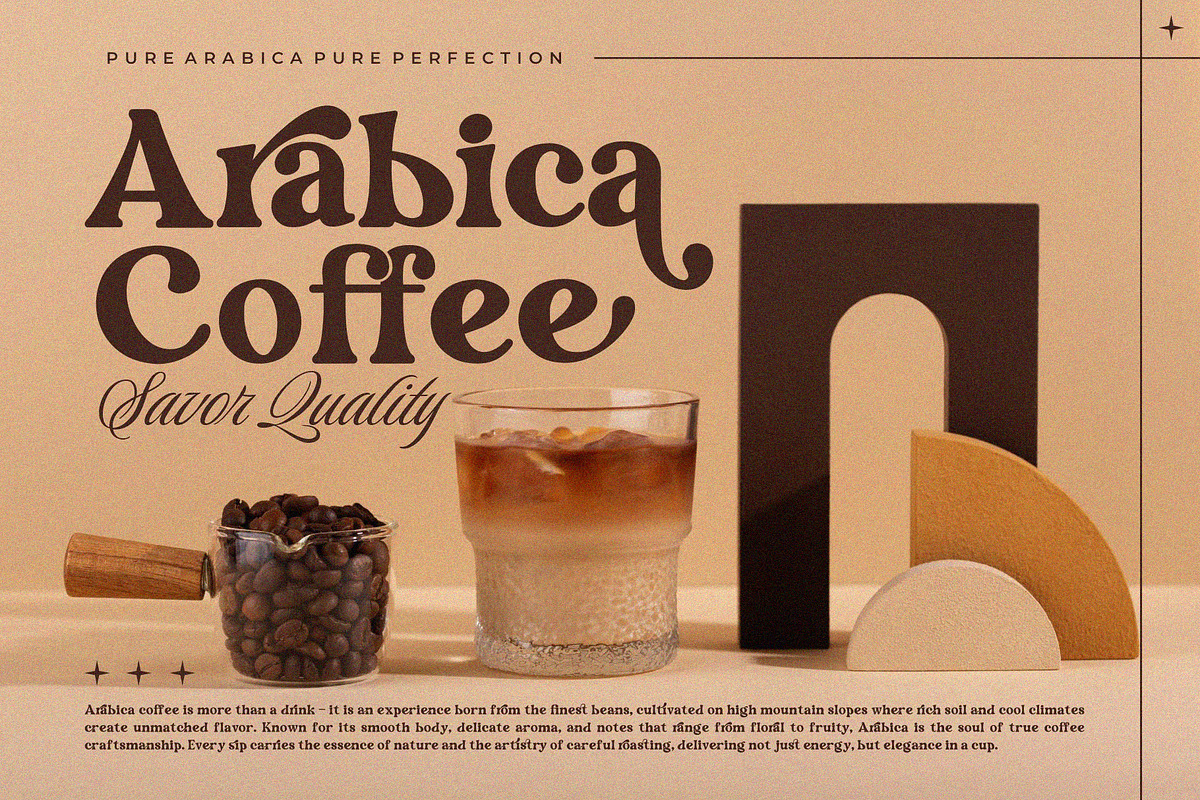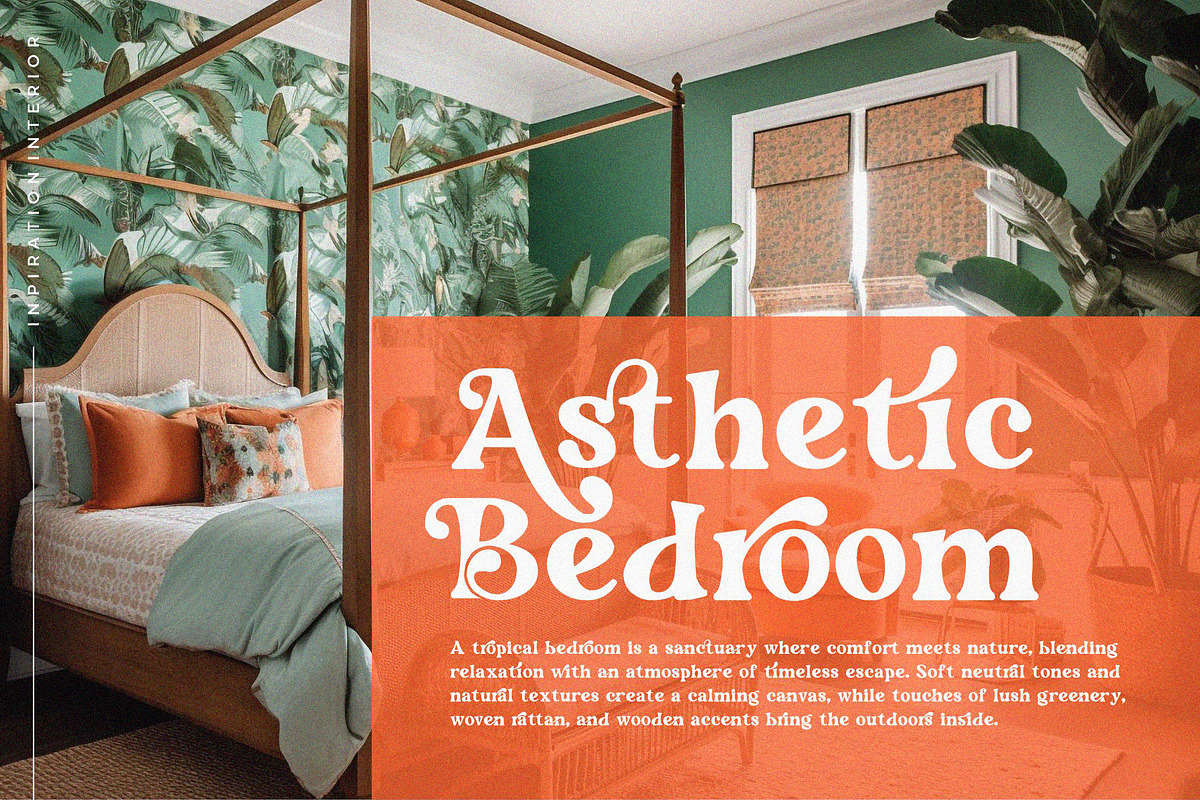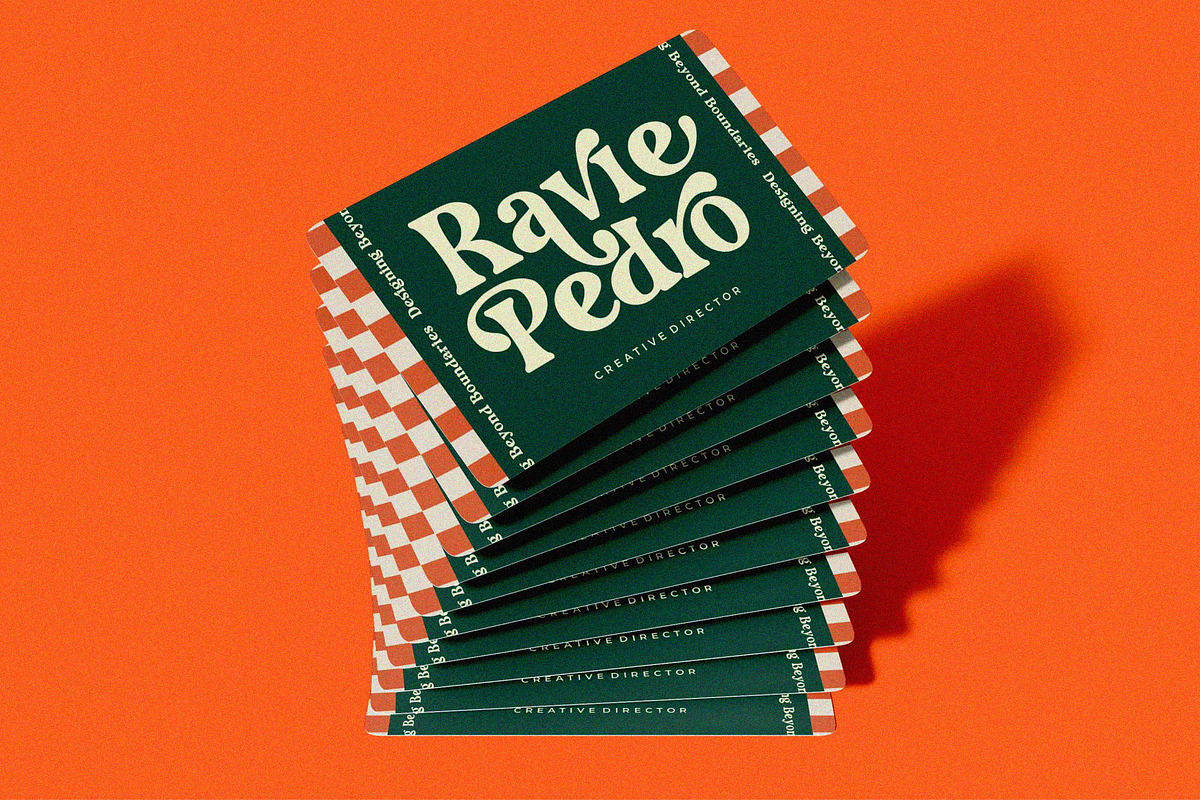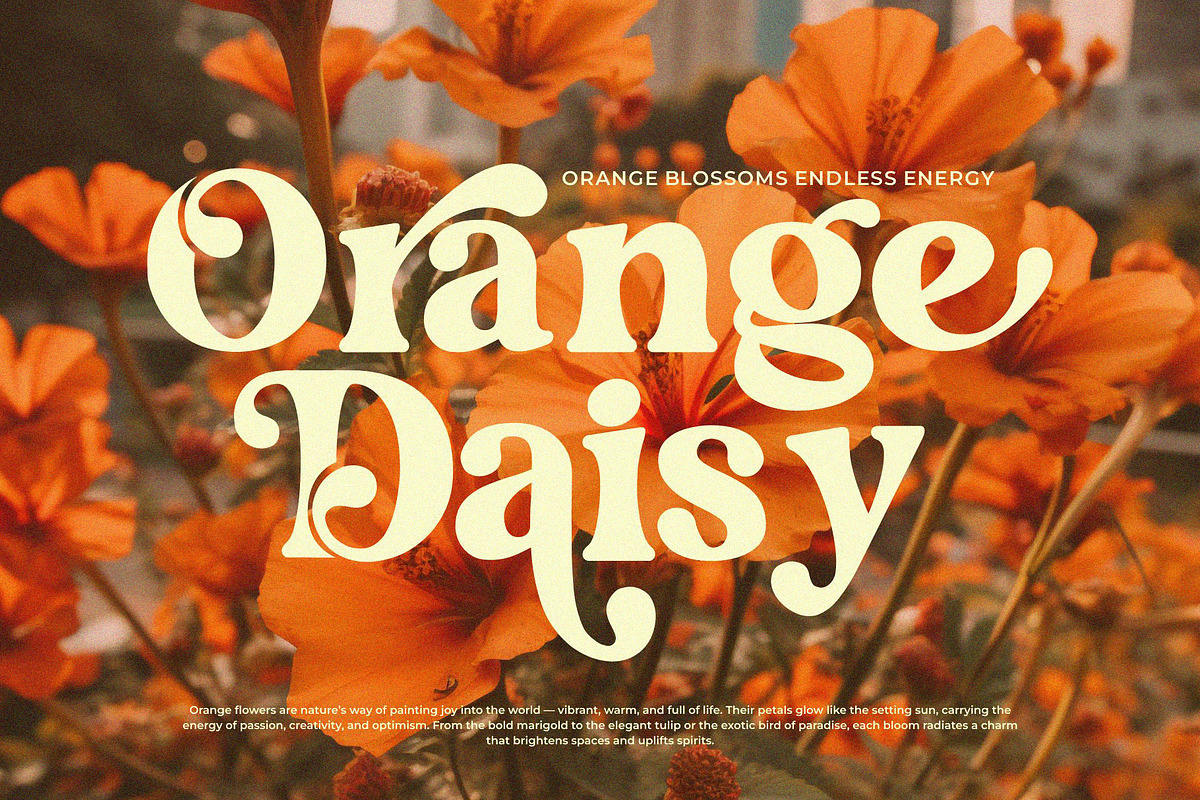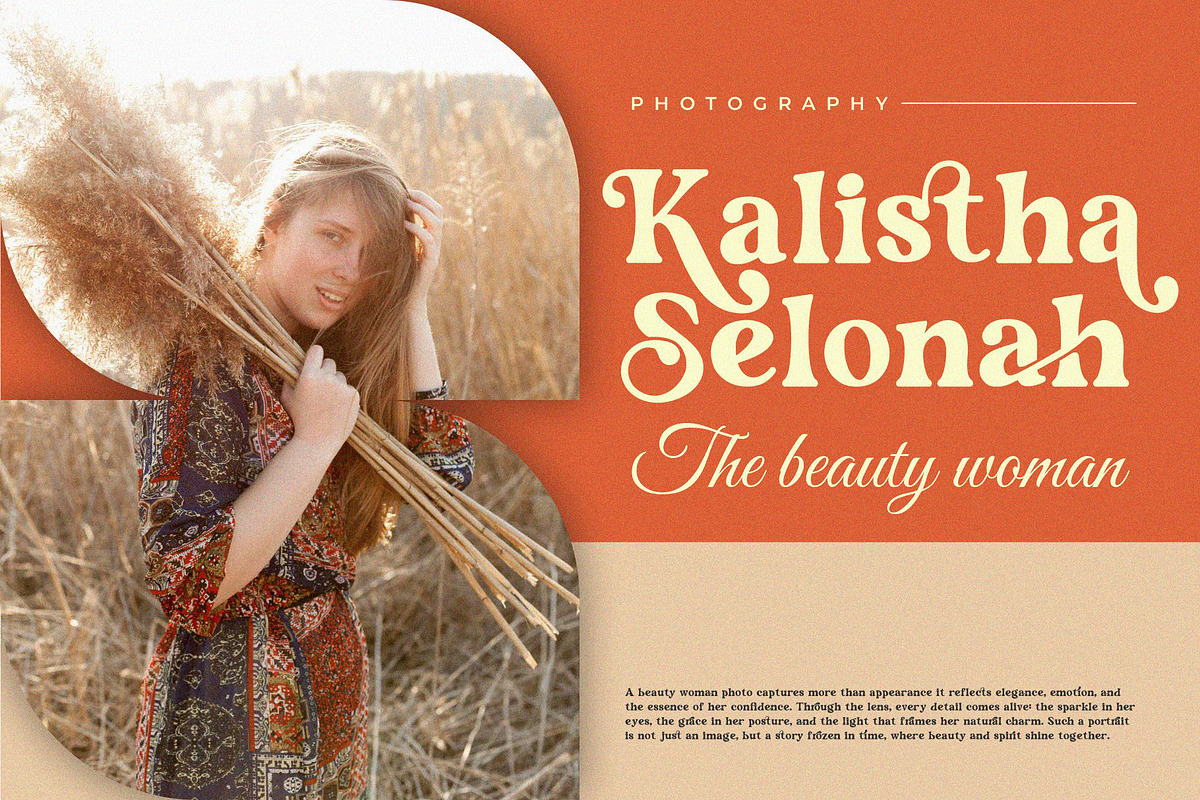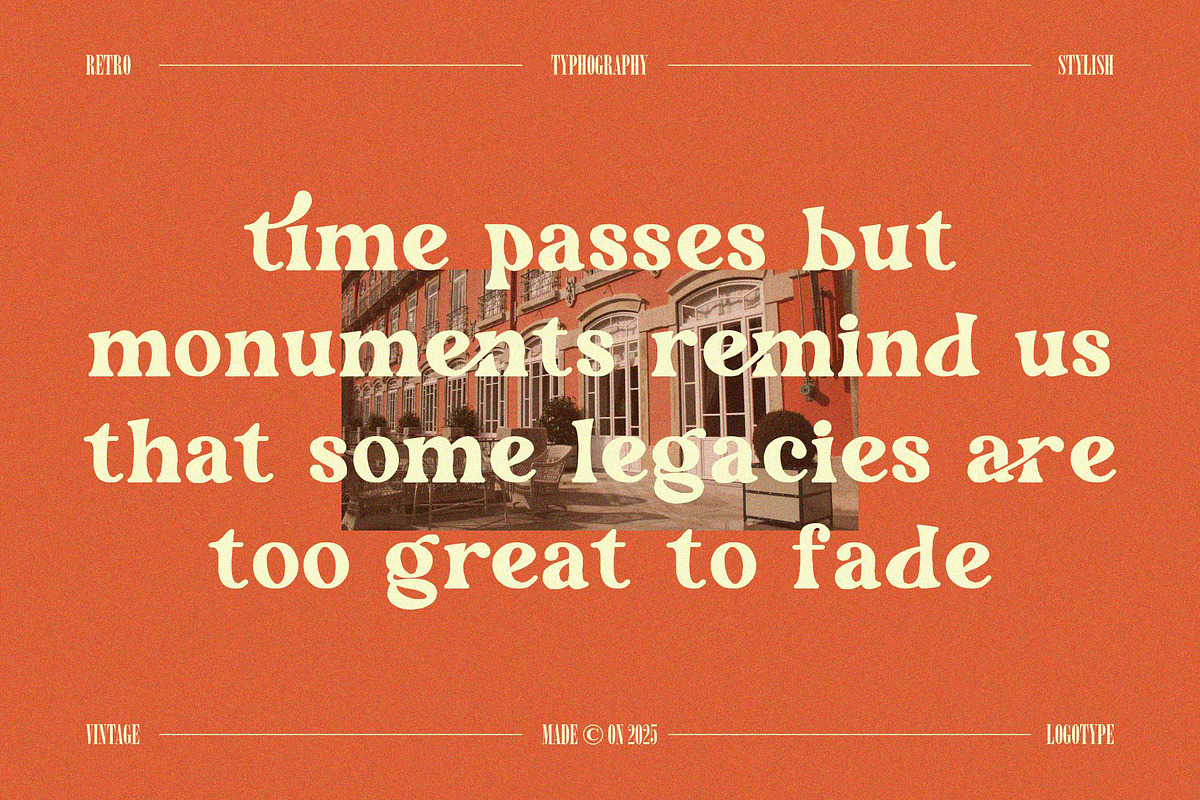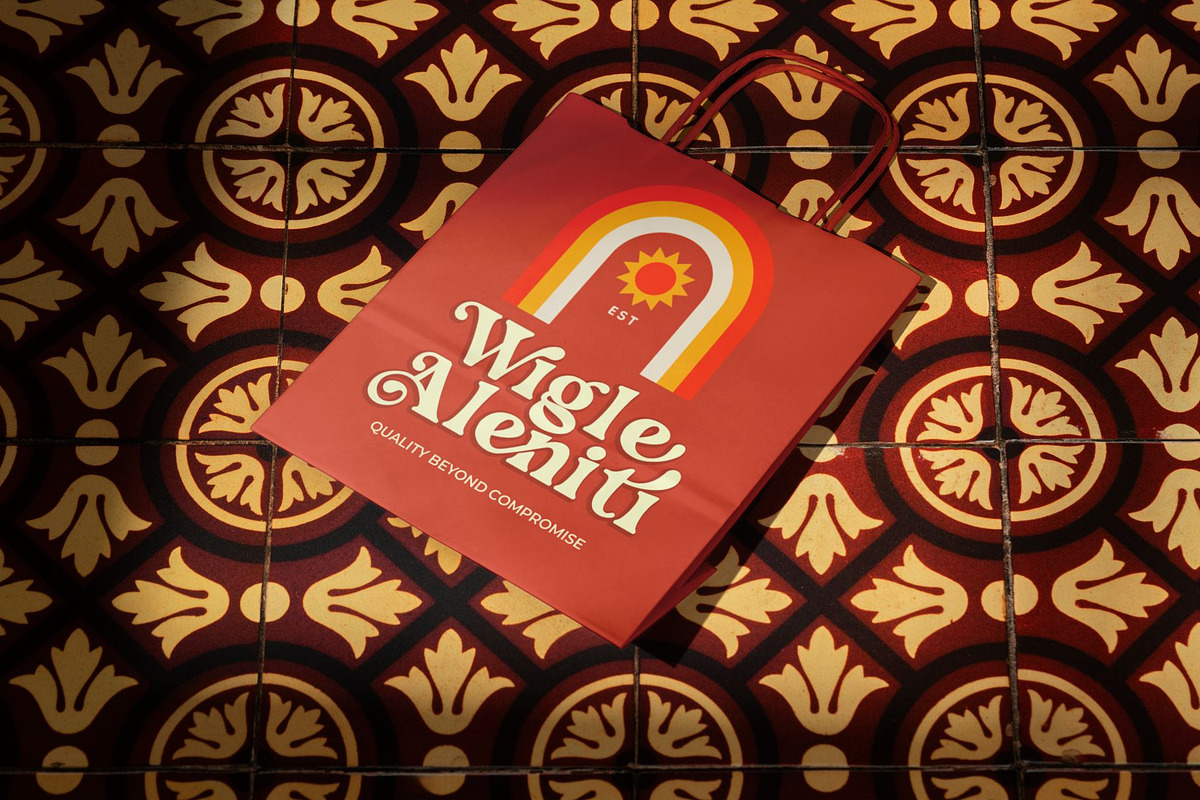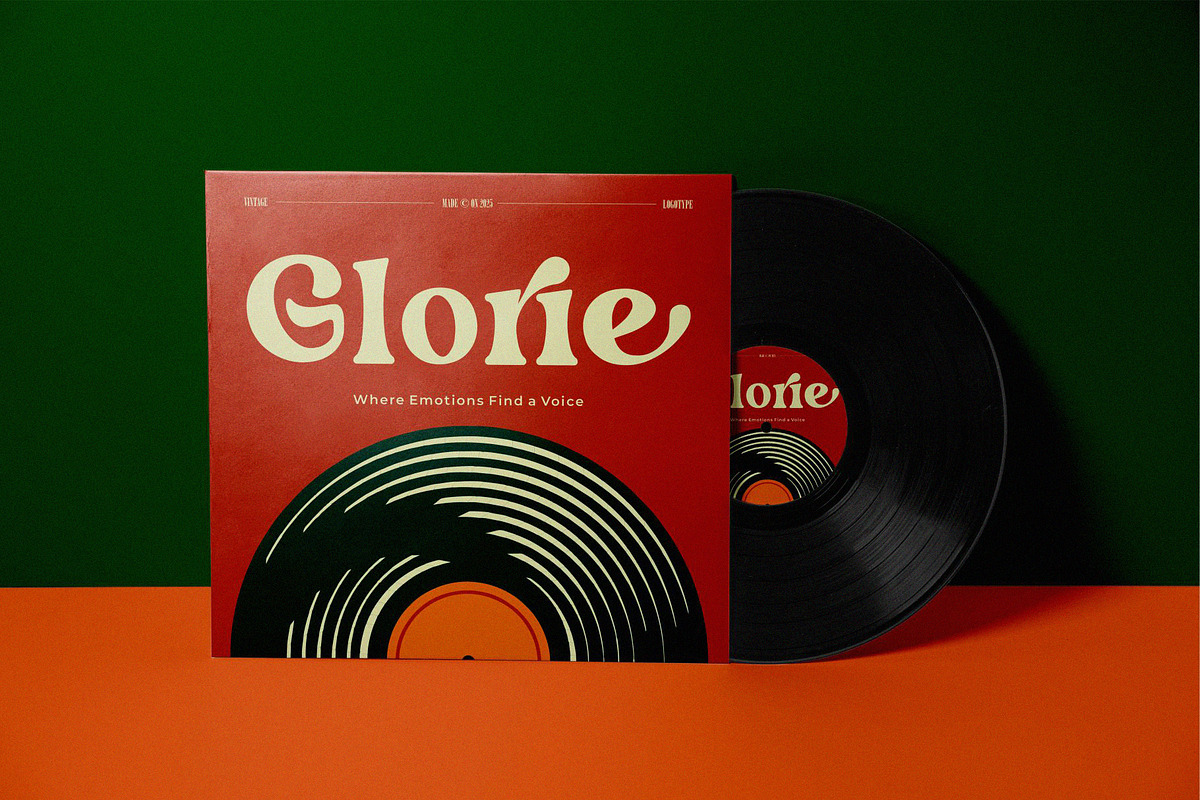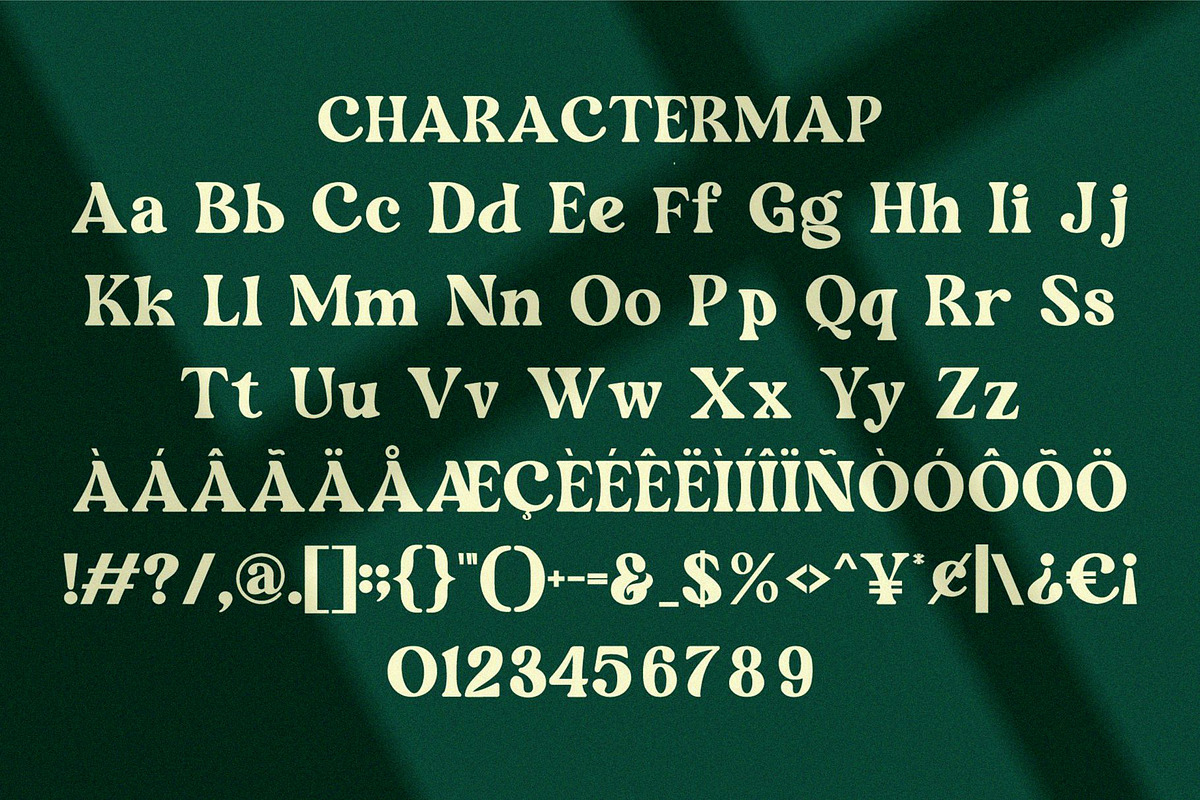
Slikren || Vintage Retro Serif Font
Slikren Serif is a vintage and retro font type for all branding and logo designs. This vintage and retro Serif font has a beautiful character. This font is suitable for invitation card designs, cool logos, movie titles, movie names, business cards, book titles, brand names, and various other designs. Slikren Serif is a smooth serif font that exudes sophistication and the moment. Its stylish ligatures make this font a perfect partner for any project.